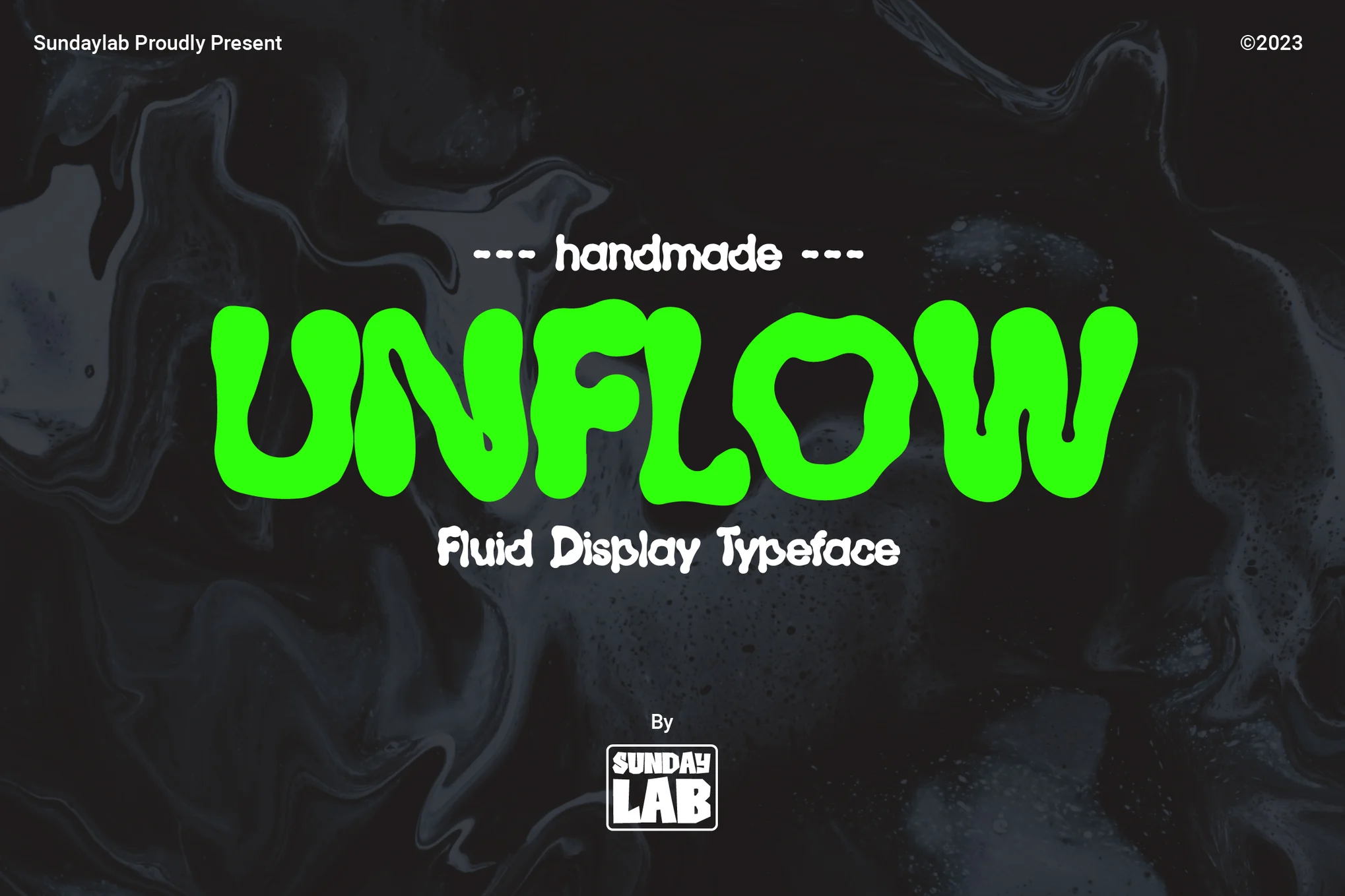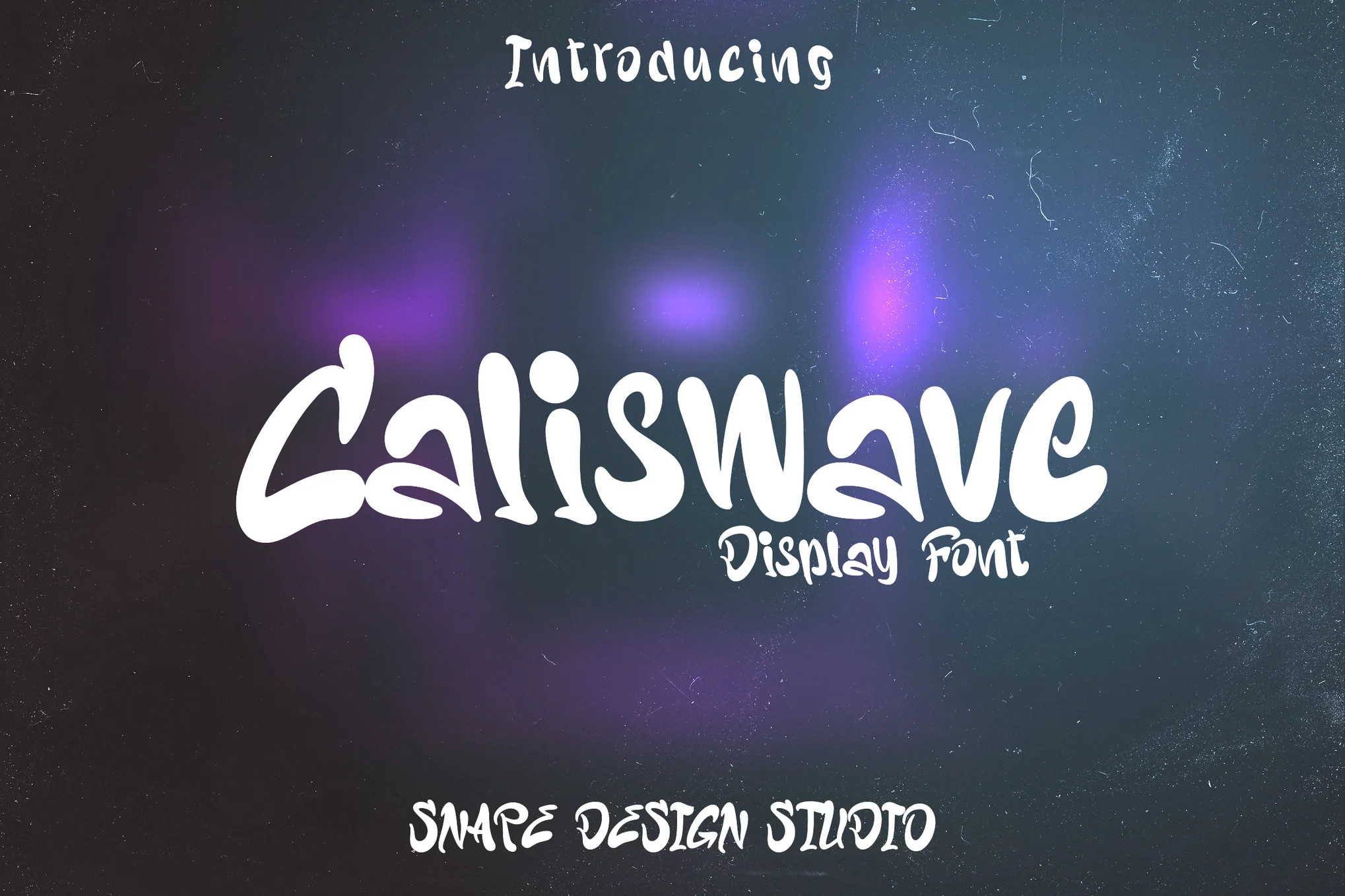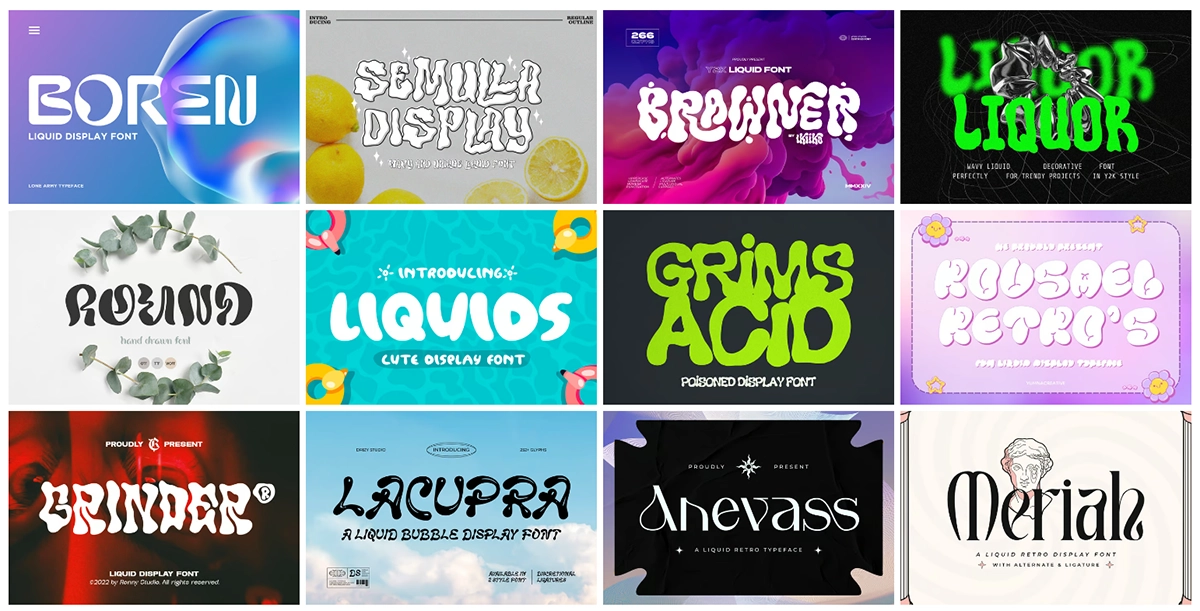
Do you want to create a sense of fluidity, and energy to your designs? In today’s highly-competitive web design world Typography plays an essential role in improving the aesthetics and user experience. One trend that’s been growing in popularity can be seen in the application of liquid fonts. They are renowned for their unique capacity to create a sense movement and adaptability to your design work.
Liquid fonts are distinguished by their rounded curvatures and organic shapes that allow them to create sensations of motion and energy. If you’re designing for websites branding, or even digital marketing, including these fonts can enhance your work and provide an experience that is more appealing to your viewers.
From fun scripts to striking display fonts, the variety of liquid fonts allows them to be used for many different applications. They can give a refreshing design that make them distinct in a market. As trends continue to develop, looking into the top liquid fonts can open up new creative possibilities for your design projects.
9+ Liquid Fonts That Will Make Your Designs Stand Out (Available Now)
1. Squide Font: A Bold Liquid Urban Display Font
Squide Font is an innovative and experimental liquid urban display typeface that brings a bold, modern flair to any design project. Characterized by its fluid lines and urban edge, this font is perfect for crafting eye-catching headlines, dynamic logos, striking posters, and more.
What sets Squide Font apart is its ability to infuse designs with a vibrant and contemporary look, making it an excellent choice for those looking to make a statement. Whether you’re working on a creative campaign or a personal project, this font can elevate your visuals, capturing attention and conveying a sense of energy and movement.
Explore the unique charm of Squide Font and see how it can transform your design endeavors!
2. Qweny Font: A Liquid-Shaped Delight with Vintage Charm
Qweny is a beautifully crafted liquid-shaped font that combines a classic modern feel with mouthwatering aesthetics. Its design oozes vintage charm, making it an ideal choice for products that seek to evoke nostalgia while maintaining a contemporary appeal.
Whether you’re designing packaging for gourmet treats, creating eye-catching posters, or working on branding for a vintage-themed project, Qweny adds a delightful touch. Its carefully considered shapes and fluid lines ensure it stands out while remaining easy to read.
3. Liquids
Liquids Font: Flowing and Versatile Charm
We absolutely love the Liquids font for its smooth, flowing charm that effortlessly integrates into any design. Its casual and approachable style makes it a versatile choice, working well for both bold headlines and more subtle text elements.
With its easy readability, even against busy backgrounds, Liquids shines in a wide range of design projects. Whether you’re using it for branding, posters, or web designs, this font brings an adaptable elegance that fits beautifully in any creative setting.
4. Semulla
Semulla is a funky, wobbly hand-drawn font inspired by the nostalgic Y2K aesthetic. Its groovy style makes it perfect for a variety of design projects, including posters, logos, t-shirts, and flyers. With two distinct styles to choose from, Semulla adds a playful, retro touch that works well for both personal and commercial designs. We particularly love this font for its blend of vintage charm and modern flair, making it an excellent fit for any creative project.
5. Grims Acid
Grims Acid – Liquid Display Font is a spooky, liquid-inspired display font with twisted, dripping letters, perfect for Halloween-themed designs. Its macabre and eerie aesthetics make it ideal for adding horror and dark whimsy to any creative project. Whether it’s posters, invitations, or digital art, Grims Acid brings a hauntingly unique vibe. We love how it transforms our designs into something truly eerie and spine-chilling!
6. Fuente líquida
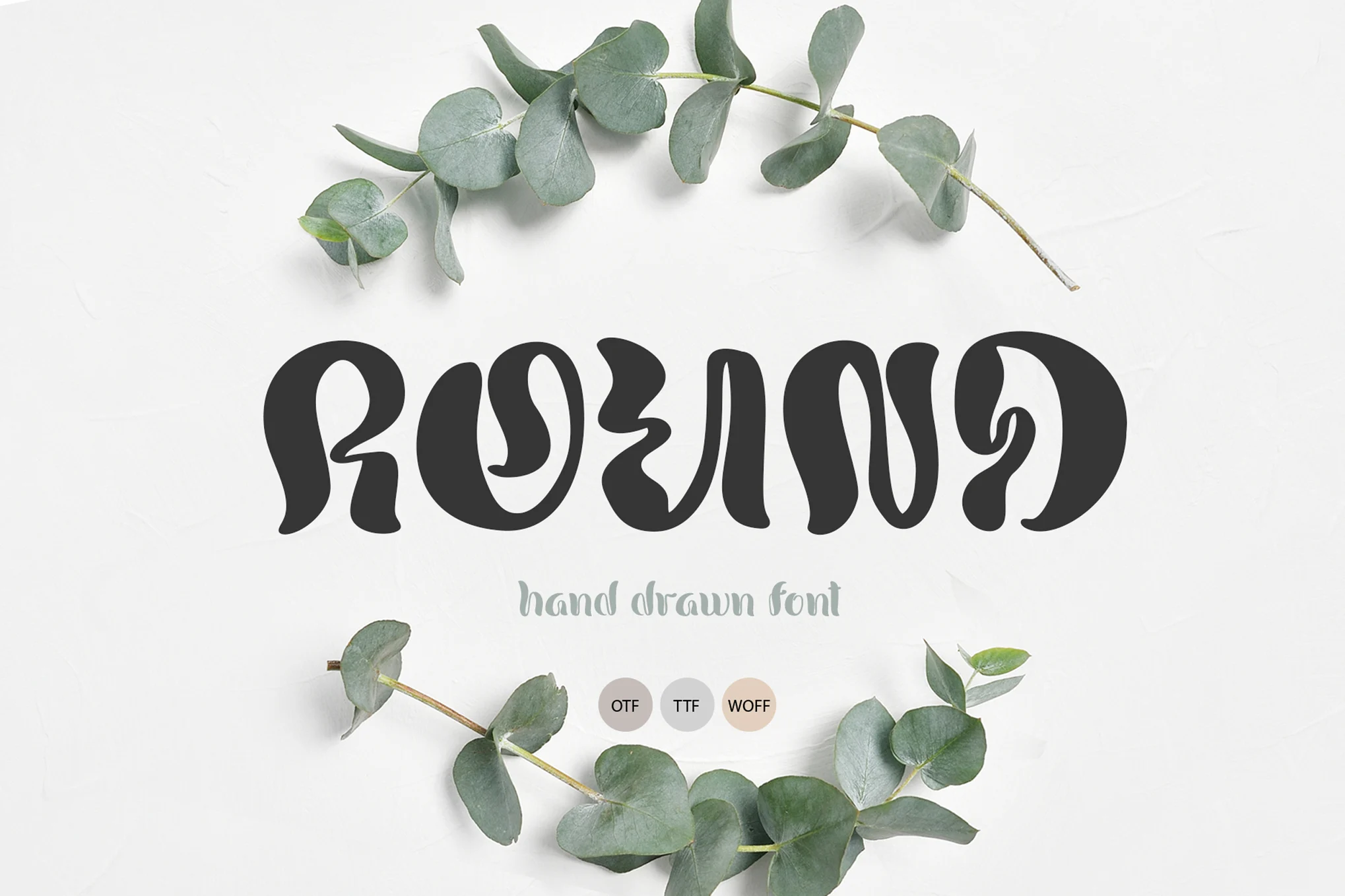
Fuente Líquida is a sans-serif typeface that balances playfulness with elegance. Its fluid, dynamic design evokes a sense of tranquility and mindfulness, making it perfect for creative projects that aim to inspire positivity and a sense of calm. We love how it effortlessly adds sophistication to any design, making it a top choice for logos, branding, and positive messaging campaigns. Whether you’re working on product packaging or digital content, Fuente Líquida brings just the right amount of grace and style to your work.